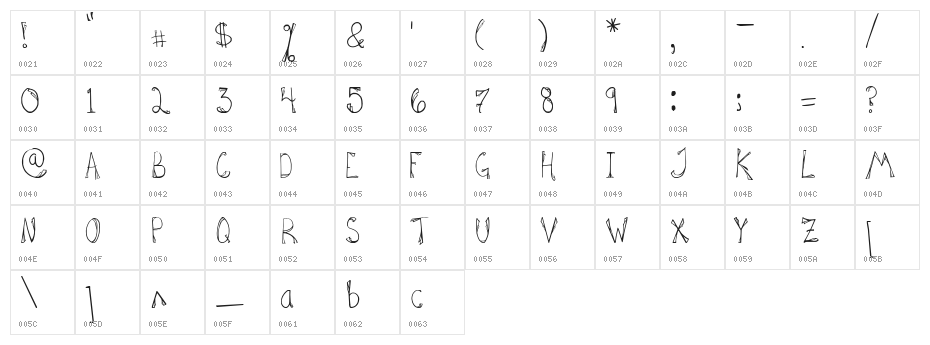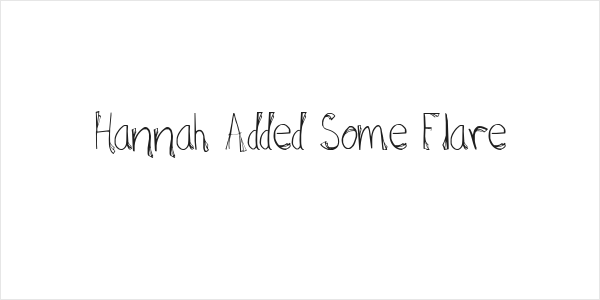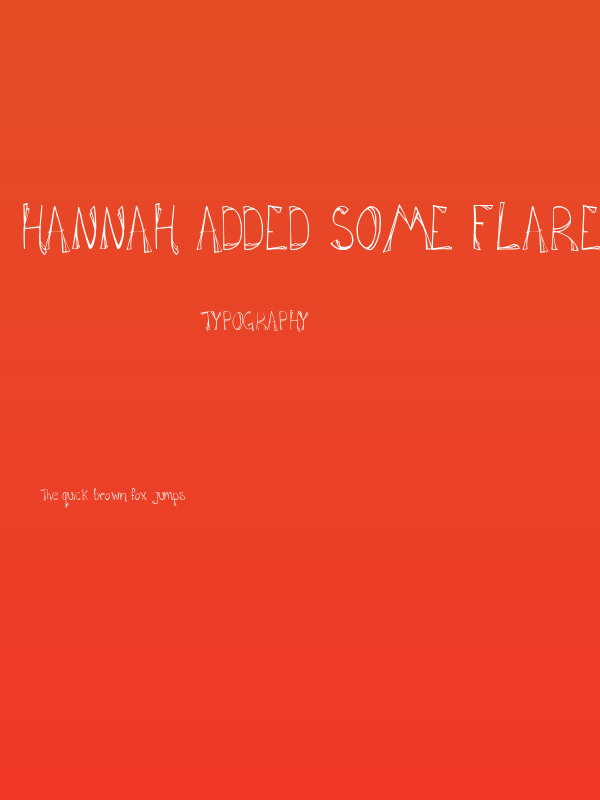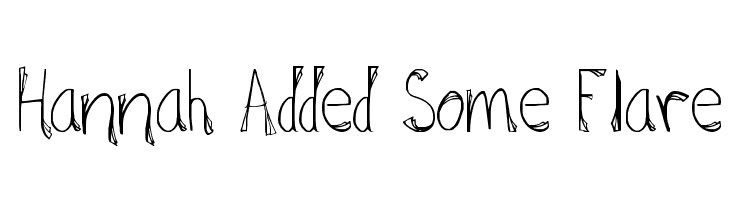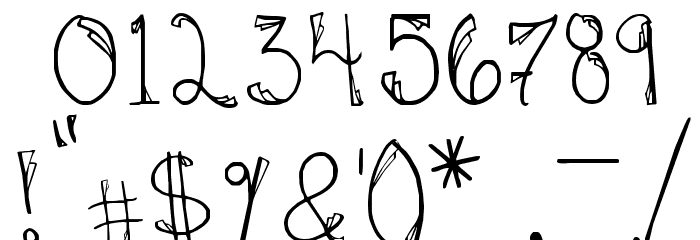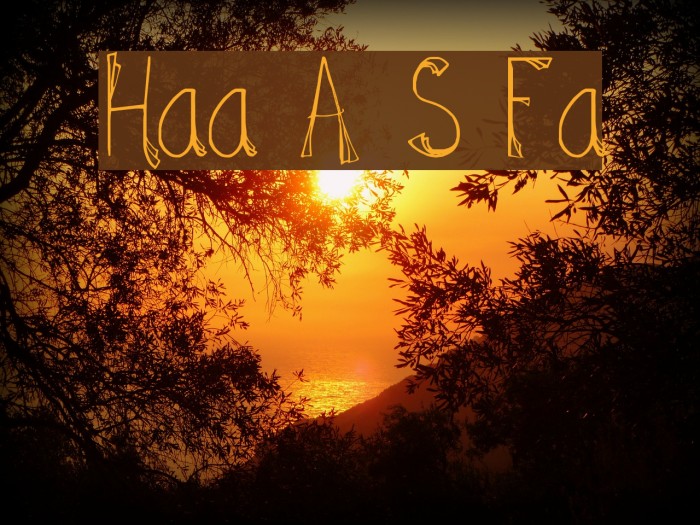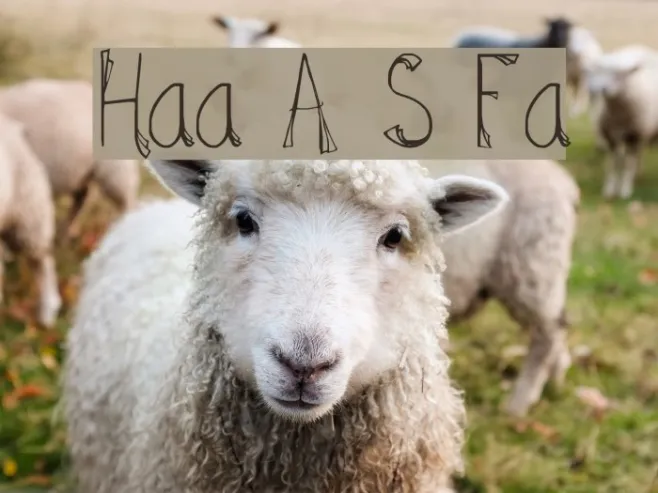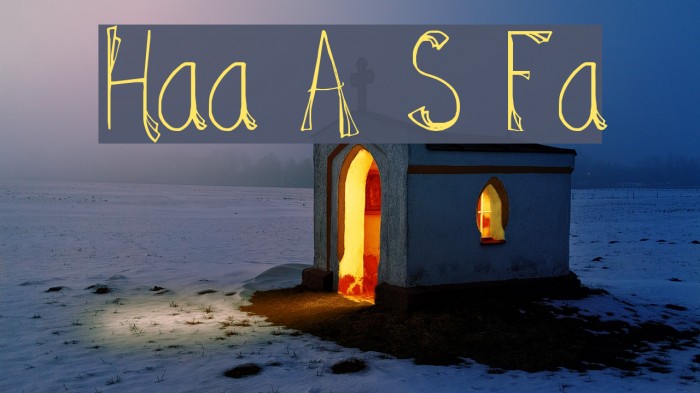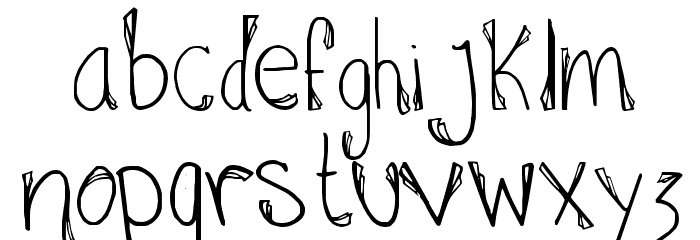
Hannah Added Some Flare Font
Hannah Added Some Flare Description
This font exudes a playful and artistic flair, characterized by its hand-drawn, sketch-like appearance. Each letter is uniquely crafted with irregular lines and whimsical curves, giving it a dynamic and lively feel. The uppercase and lowercase letters maintain a consistent style, with exaggerated strokes and varying thickness that add to its charm. The numbers and special characters follow the same artistic theme, ensuring a cohesive look across all elements. This font is perfect for projects that require a touch of creativity and individuality, making it ideal for artistic designs, children's books, or any project that benefits from a fun and informal style.
| Overall Style | Artistic, Playful |
| Use Case | Headlines, Creative projects, Informal designs |
| Proposed Projects | Ideal for children's books, creative posters, artistic branding, and informal invitations. |